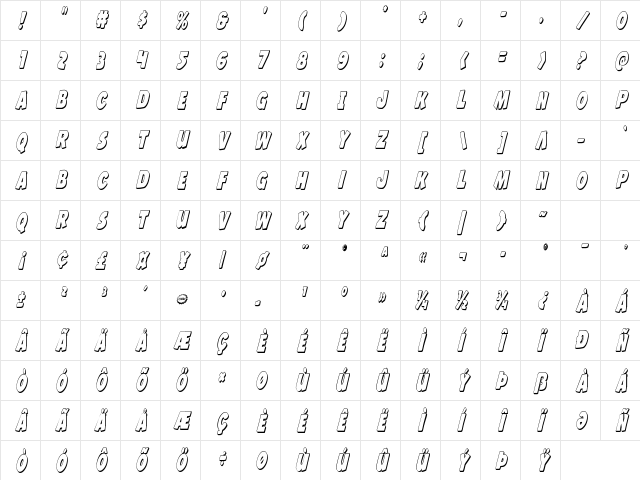
Jack's Candlestick 3D Extra-condensed Free Font
Jack's Candlestick 3D Extra-condensed Extra-condensed
Design Context for Jack's Candlestick 3D Extra-condensed
Jack's Candlestick 3D Extra-condensed is a composed and adaptable typeface that performs quietly and consistently across a wide range of design contexts. Its narrow stance lets it pack a punch even in space-constrained designs.